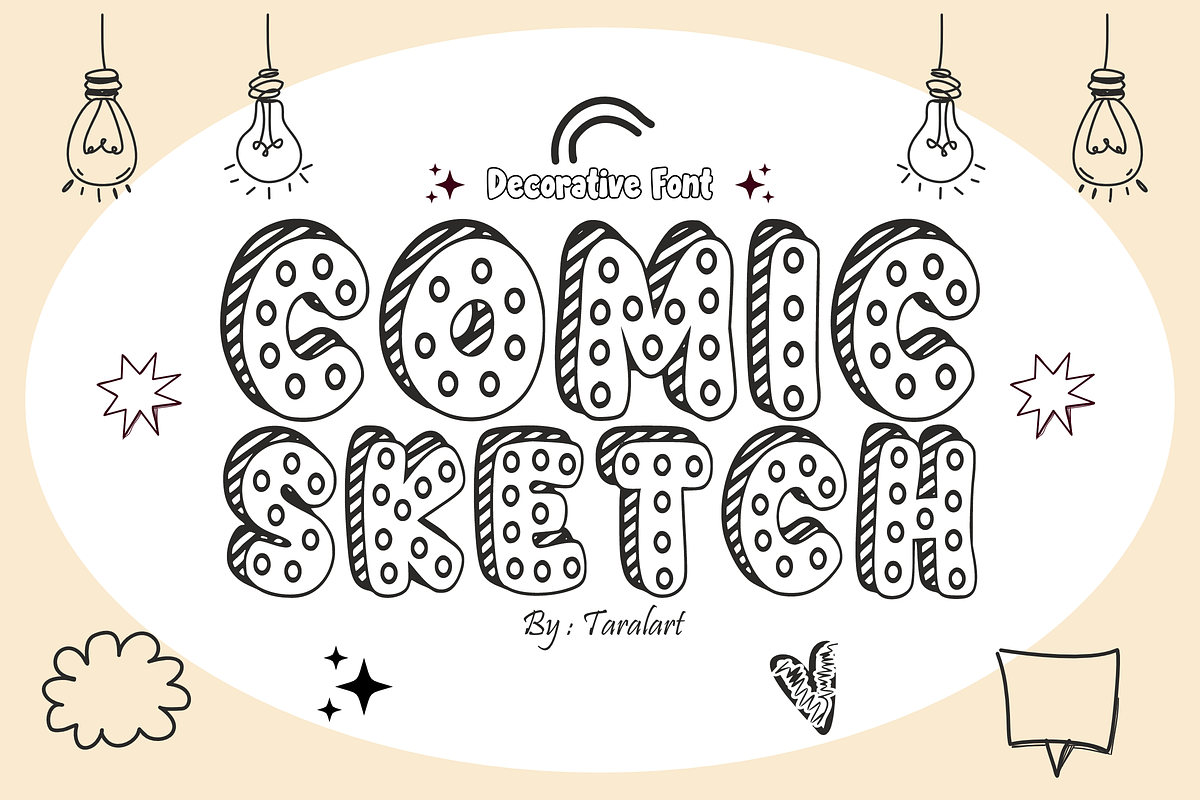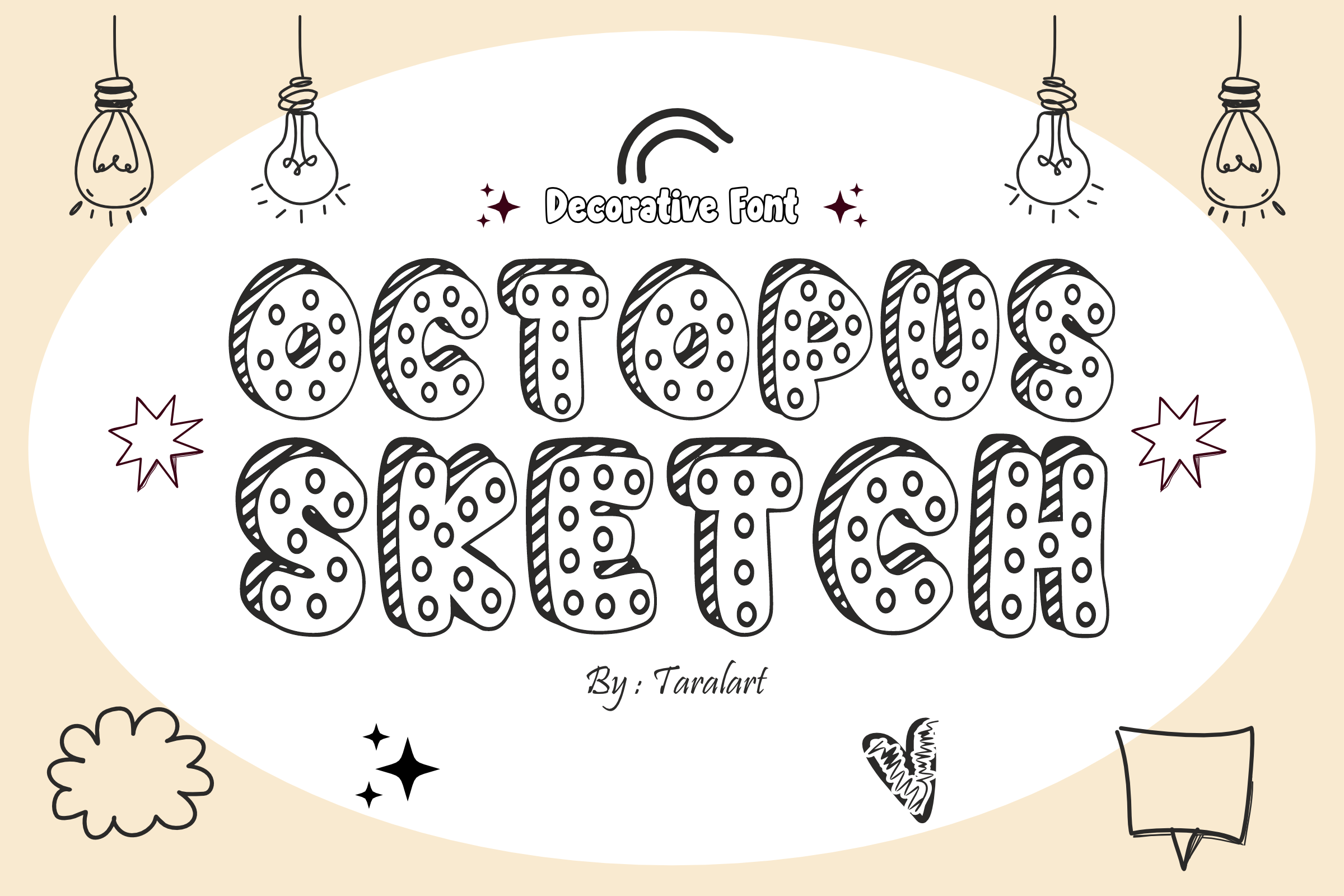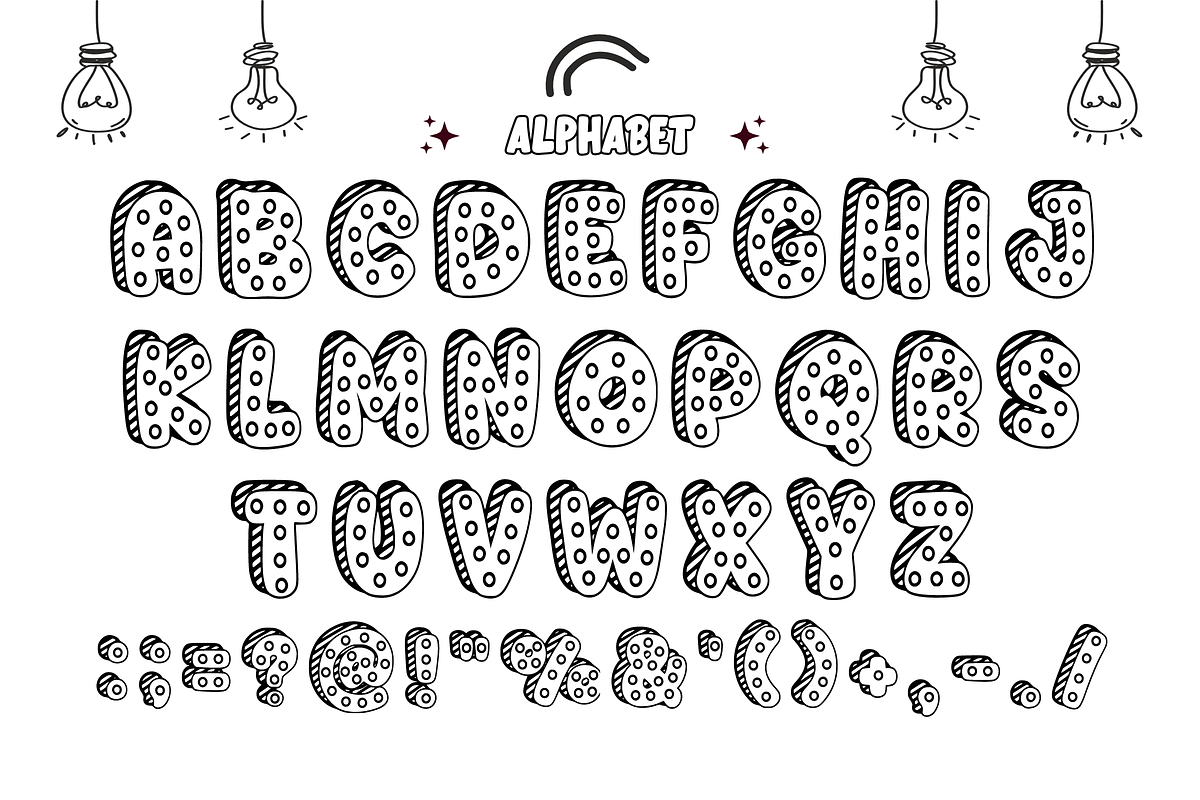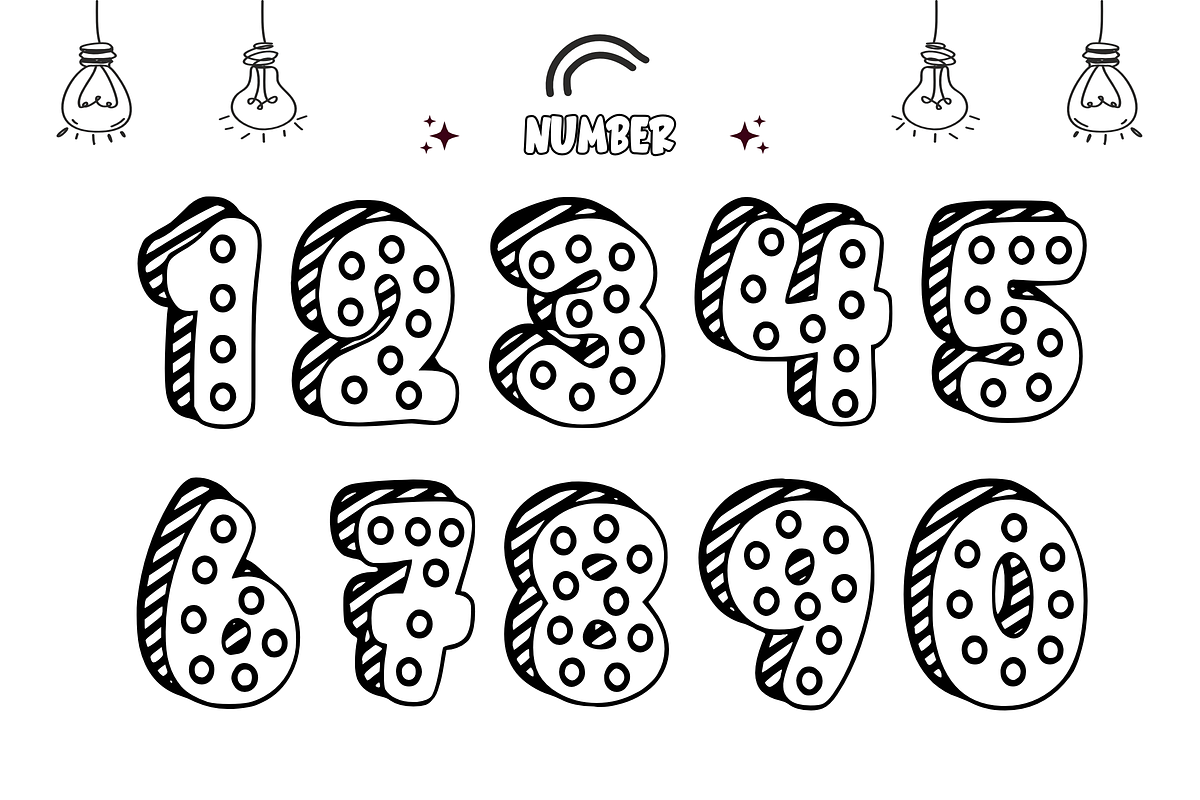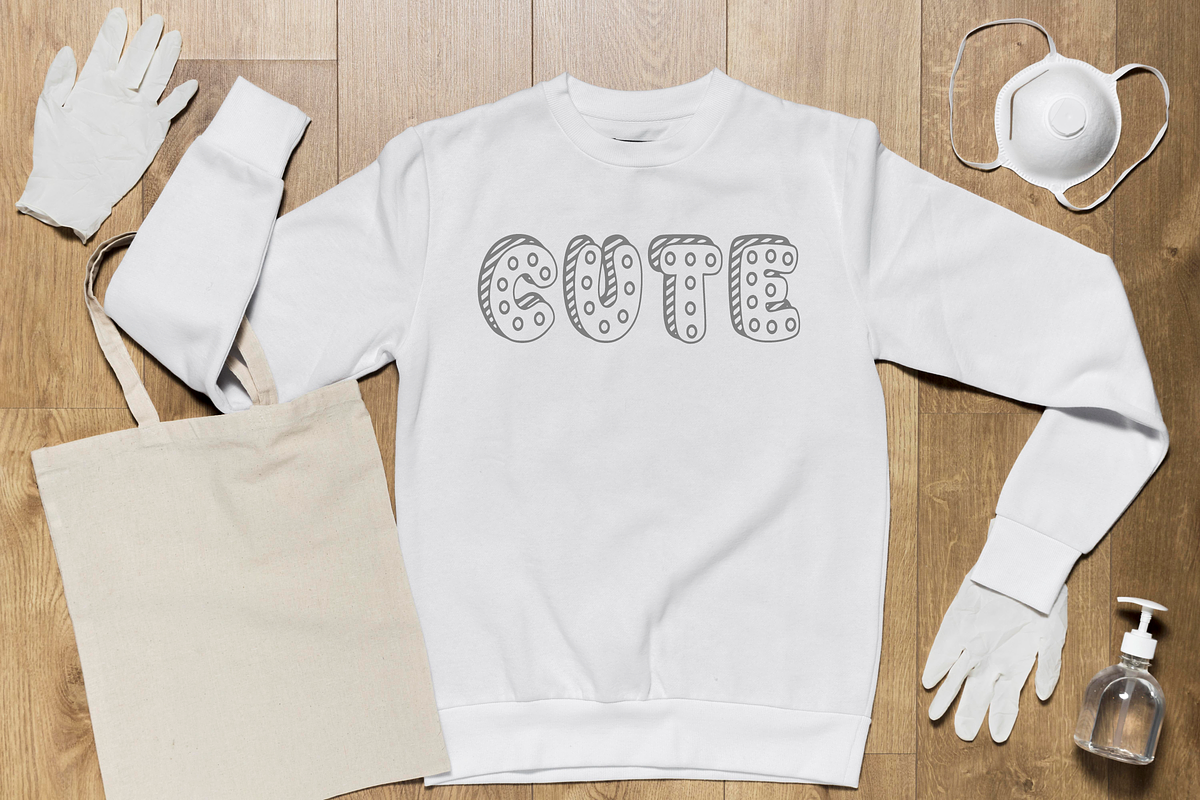
Octopus Sketch - Quirky Font
Dive into pure creativity with Octopus Sketch! This bold, 3D decorative display font features an awesome hand-drawn sketch style with playful suction-cup dots inside each letterform. It’s the ultimate choice for giving your titles, comic layouts, and craft projects a whimsical, hand-doodled look.
Perfect for quirky branding, school materials, and trend-focused crafting, Octopus Sketch masterfully pairs a unique sketched aesthetic with clean legibility. It is highly versatile, deeply expressive, and fully optimized for flawless performance across premium digital cutting tools and professional print setups.
All-Caps Character Set (Chunky, 3D-sketched letters with playful inner dots)
Numbers & Basic Punctuation (Essential, simple symbols included)
Comic Books, Kids Storybooks, & Fun School Printables 📚
Cricut, Silhouette, & DIY Hand-Drawn Craft Sublimation Projects ✂️
Nautical Themes, Sea Adventure Graphics, & Birthday Party Decor 🐙
Custom Die-Cut Stickers, Notebook Covers, & Quirky Product Packaging 🏷️
T-Shirt Prints, Playful Apparel, & Unique Merchandise Layouts 👕
High-Impact YouTube Thumbnails, Fun Logos, & Eye-Catching Headlines ✨